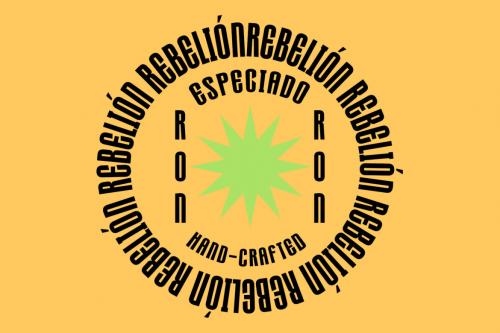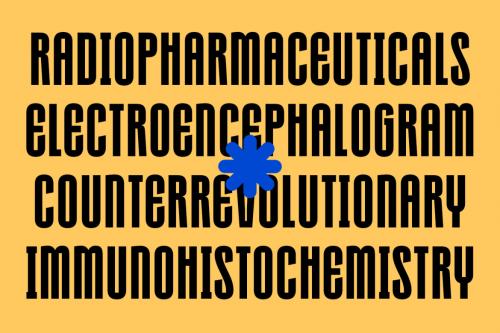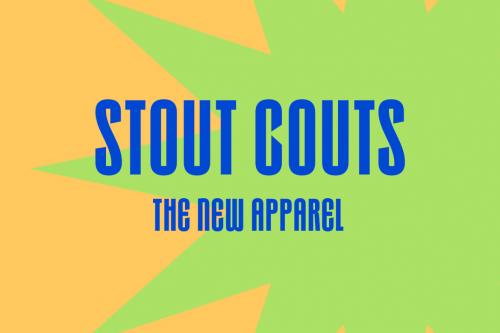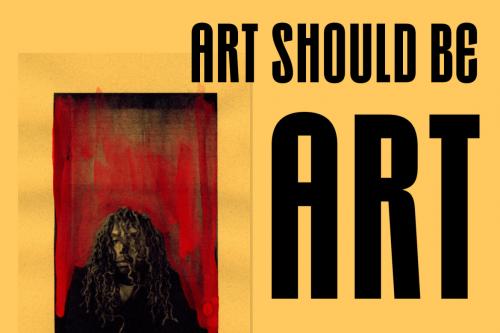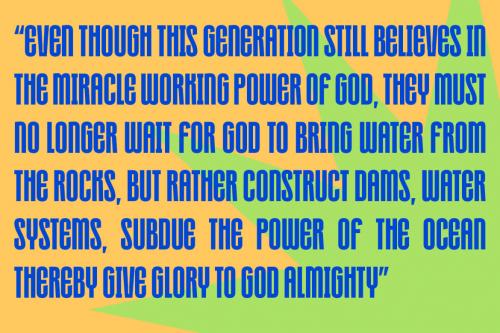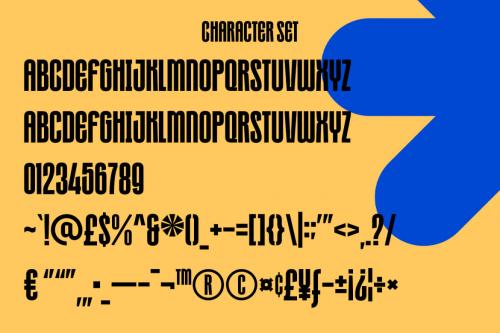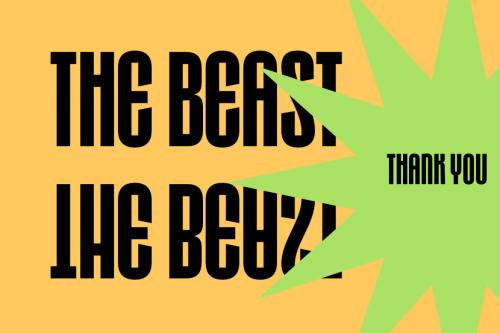
Deeezy - Cartinz Display Sans Font
Cartinz is a modern sharp condensed sans display font. With bold consist stroke, fun character with a bit of ligatures and alternates. To give you an extra creative work. Cartinz font support multilingual more than 100+ language. This font is good for logo design, Social media, Movie Titles, Books Titles, a short text even a long text letter and good for your secondary text font with sans or serif. Make a stunning work with Cartinz font.